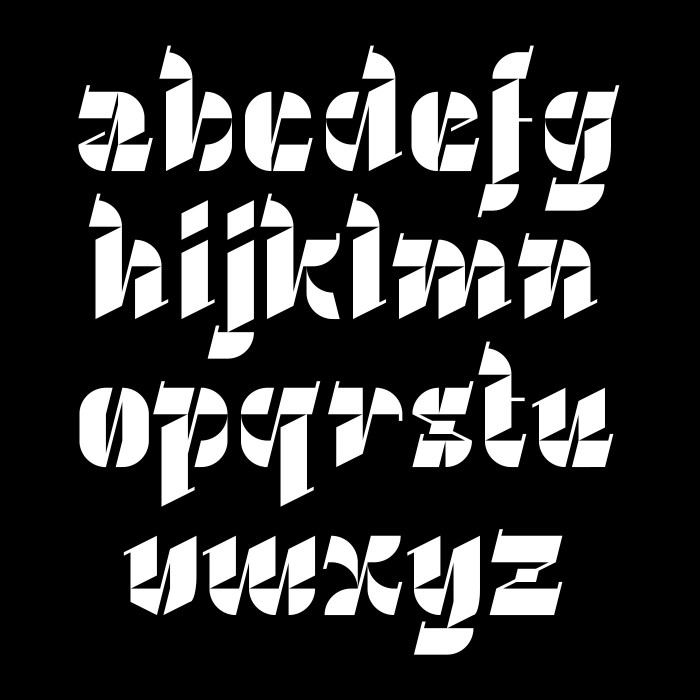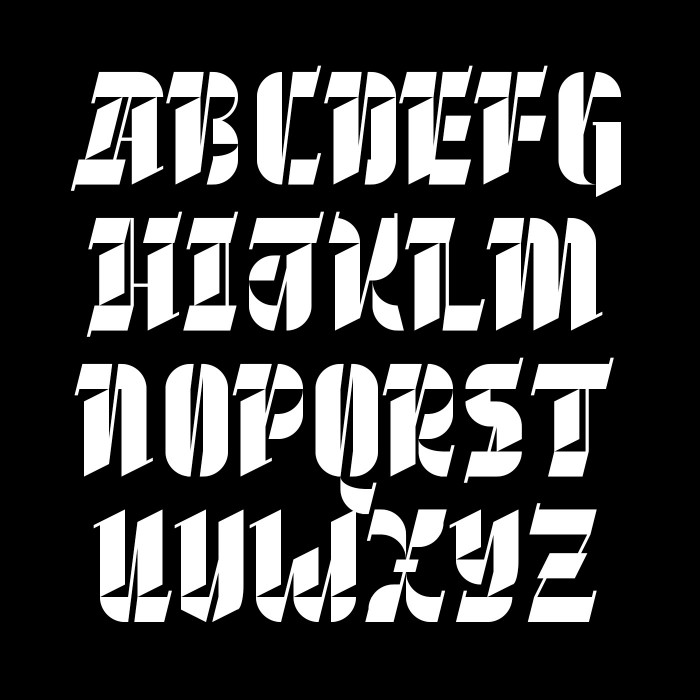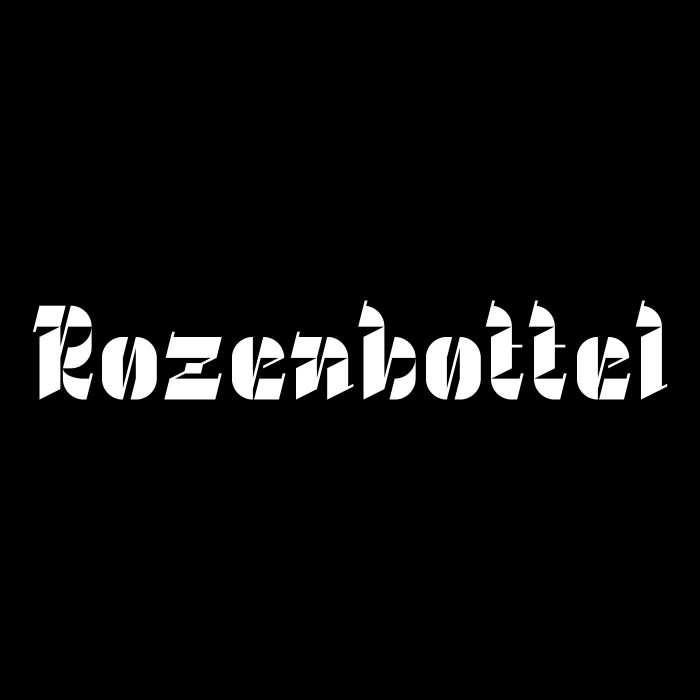
WOOOW!!! The sun is shining! ? Seeing stuff like this is what makes me forget about problems and definitely makes my week! ? A wonderful beauty, from start to finish! One of those fonts that makes me enormously jealous that I didn't build it myself, really. Congratulations and thanks for it, compañero. ??? 100/10
It's funny that we both published a blackletter around the same time (but yours is cooler than mine). Convergent thinking, once again!
And the name is perfect.
cool!
Congratulations! FontStruct Staff have deemed your FontStruction worthy of special mention. “Rozenbottel” is now a Top Pick.
Holy guacamole, there seems to be no limit to your creative imagination. Simply unparalleled..
I can not even process the latest of your contributions fast enough, let it sink in and perhaps having myself inspired by your fantastic way of combing clever structniques with your artistic visions, or even learn a thing or two from it, for the ever coming new four arrivals to bust down the door.
'nuff said..
Lovely blackletter design~
looks like klooster became a blackletter. nice font.
Stylish! Nice pattern going on with the thin diagonal lines going across the letters, also characteristic of blackletters. 10/10!
One suggestion as well: If you are keen, try meddling with the counter spaces of the letters such that the negative spaces are more evenly distributed throughout the whole font (eg. the negative space for lowercase 'x' seems to create noticeable gaps between other letters).
Wow!
Fantastic.
WOW
Speechless. Likely the most innovative blackletter I've seen in a long time.
I'm a bit late, but a great font is great forever, Bravo, love it